Bioskoop Scores at Johan Neeskens Sportpark
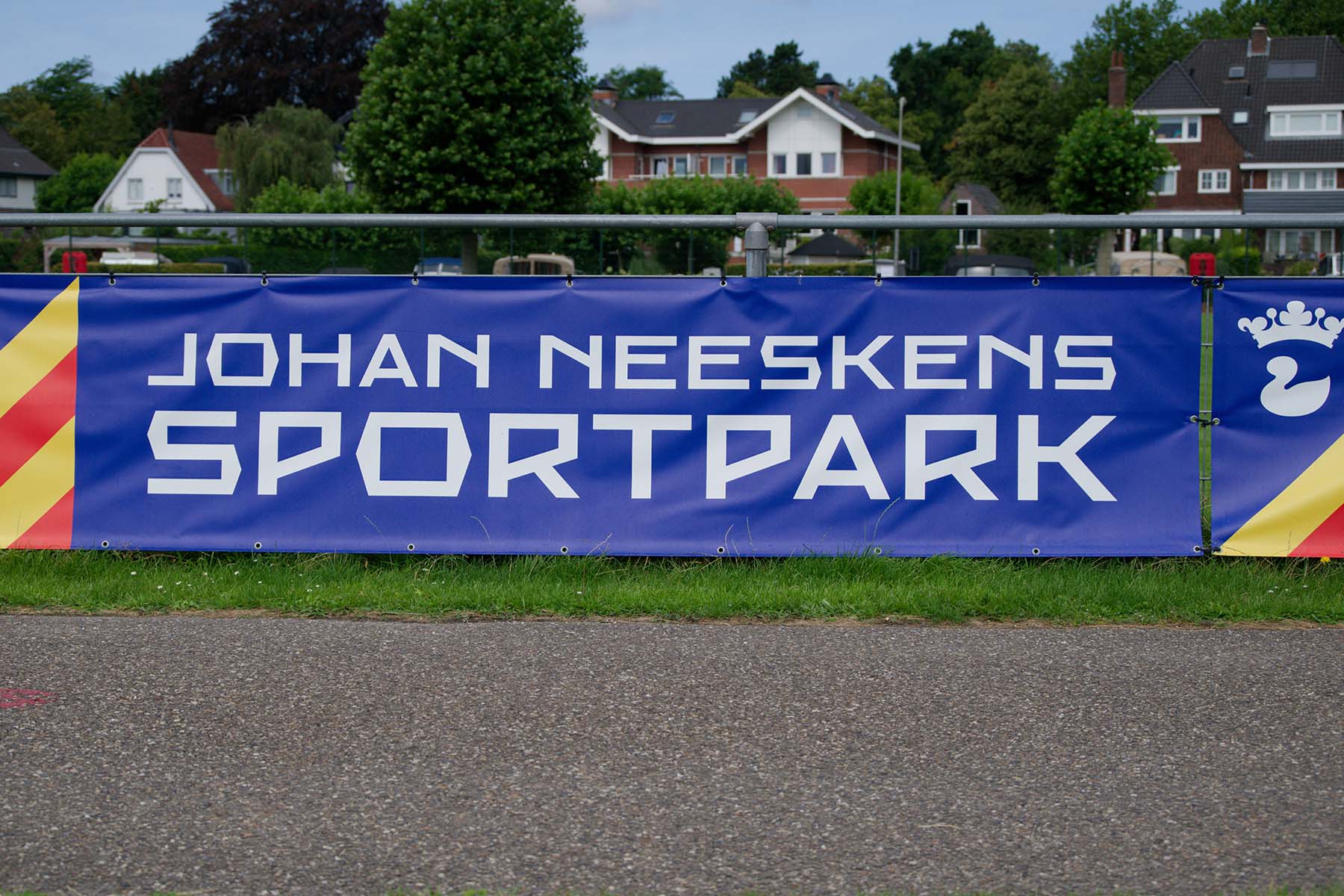
When Studio Wesseling was commissioned to develop the identity for the newly renamed Johan Neeskens Sportpark in Heemstede, they chose Bioskoop, a typeface from the Brutal Types collection, as the project’s primary typographic voice. The result is a striking identity system that feels both contemporary and deeply rooted in Dutch visual culture.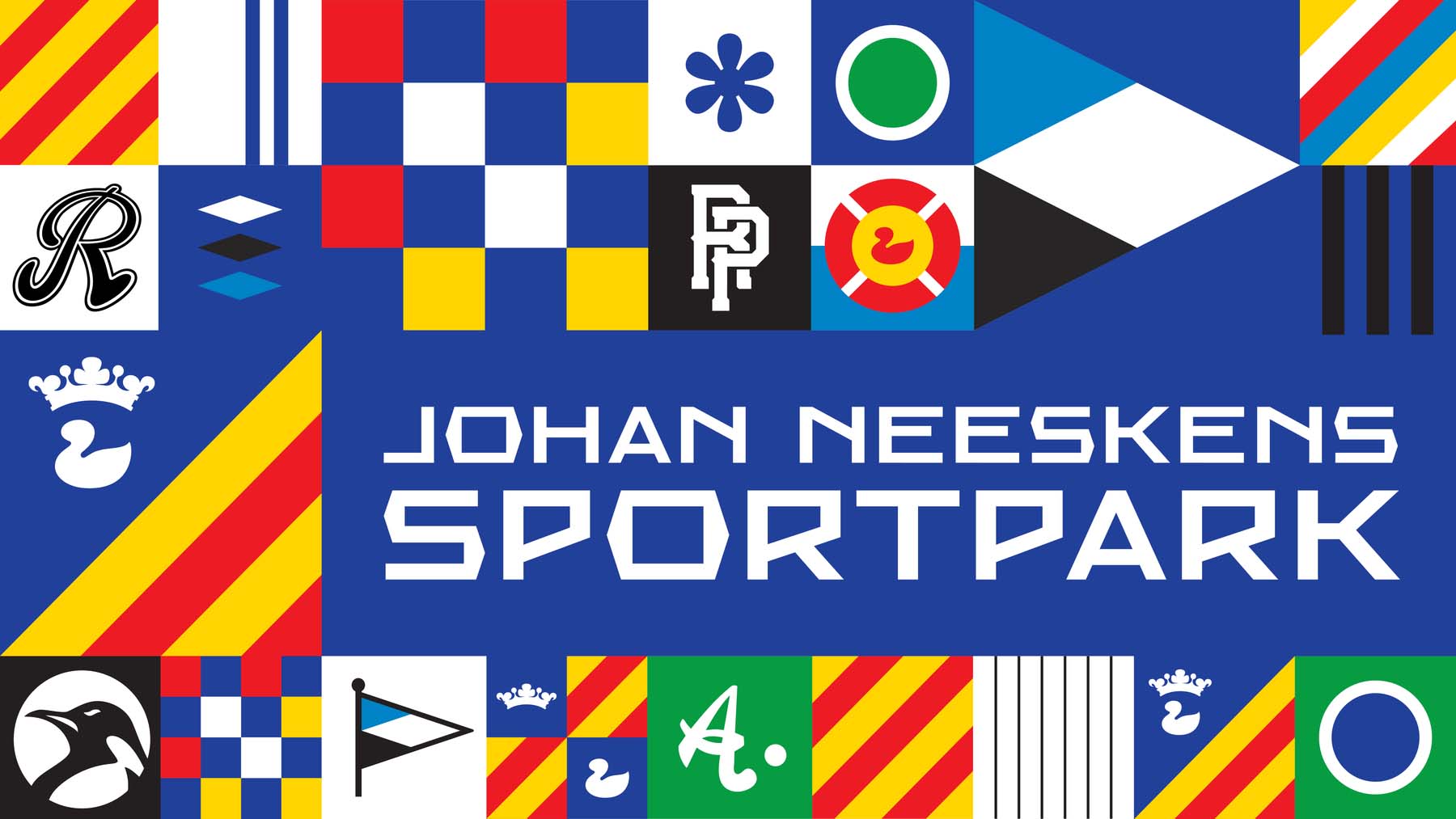
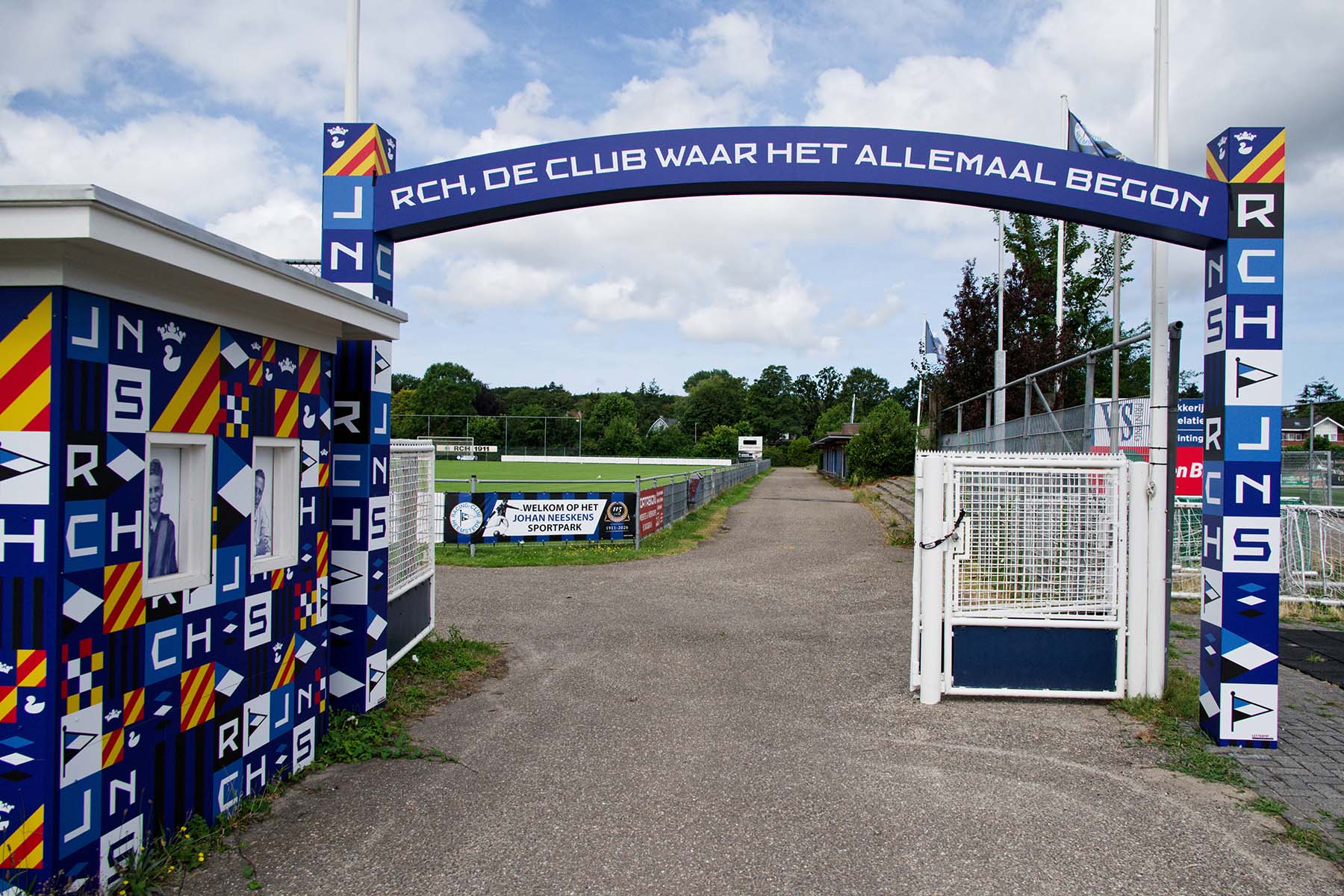
The Bioskoop typeface is inspired by the lettering found on the façade of the abandoned Cinema Palace, located in Maastricht. Like many typefaces in the Brutal Types collection, it revives a forgotten vernacular alphabet that once shaped the streetscape of the Netherlands. Rather than treating historical lettering as a nostalgic curiosity, Studio Wesseling demonstrates how these overlooked typographic traditions can become powerful tools for contemporary branding.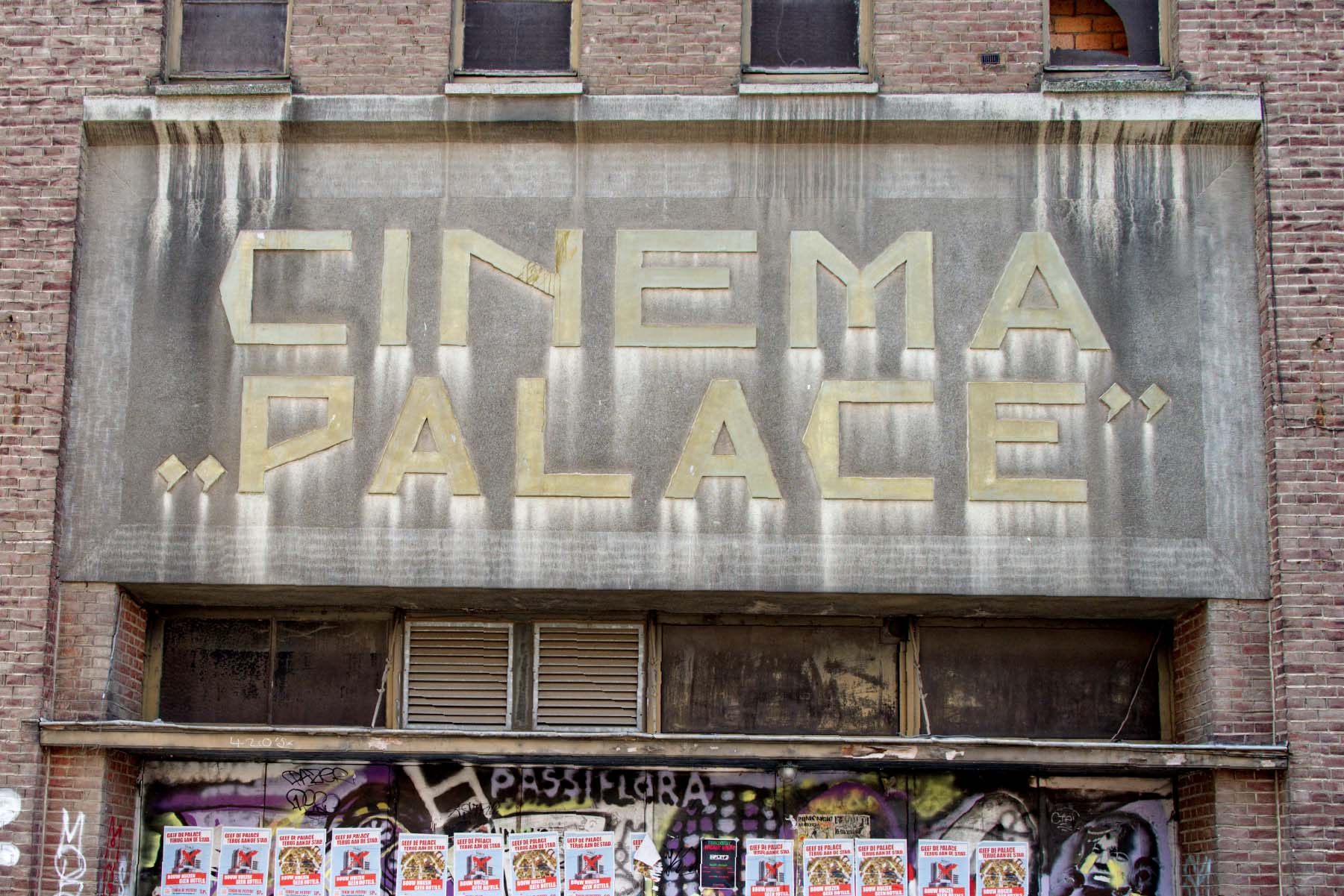
The Johan Neeskens Sportpark identity is an excellent example of why vernacular letterforms deserve a place in today’s design practice. By drawing on a locally rooted typographic language instead of generic display fonts, the project gains a distinctive character that feels authentic to its cultural context. The typography doesn’t simply decorate the identity—it reinforces a sense of place, history, and continuity.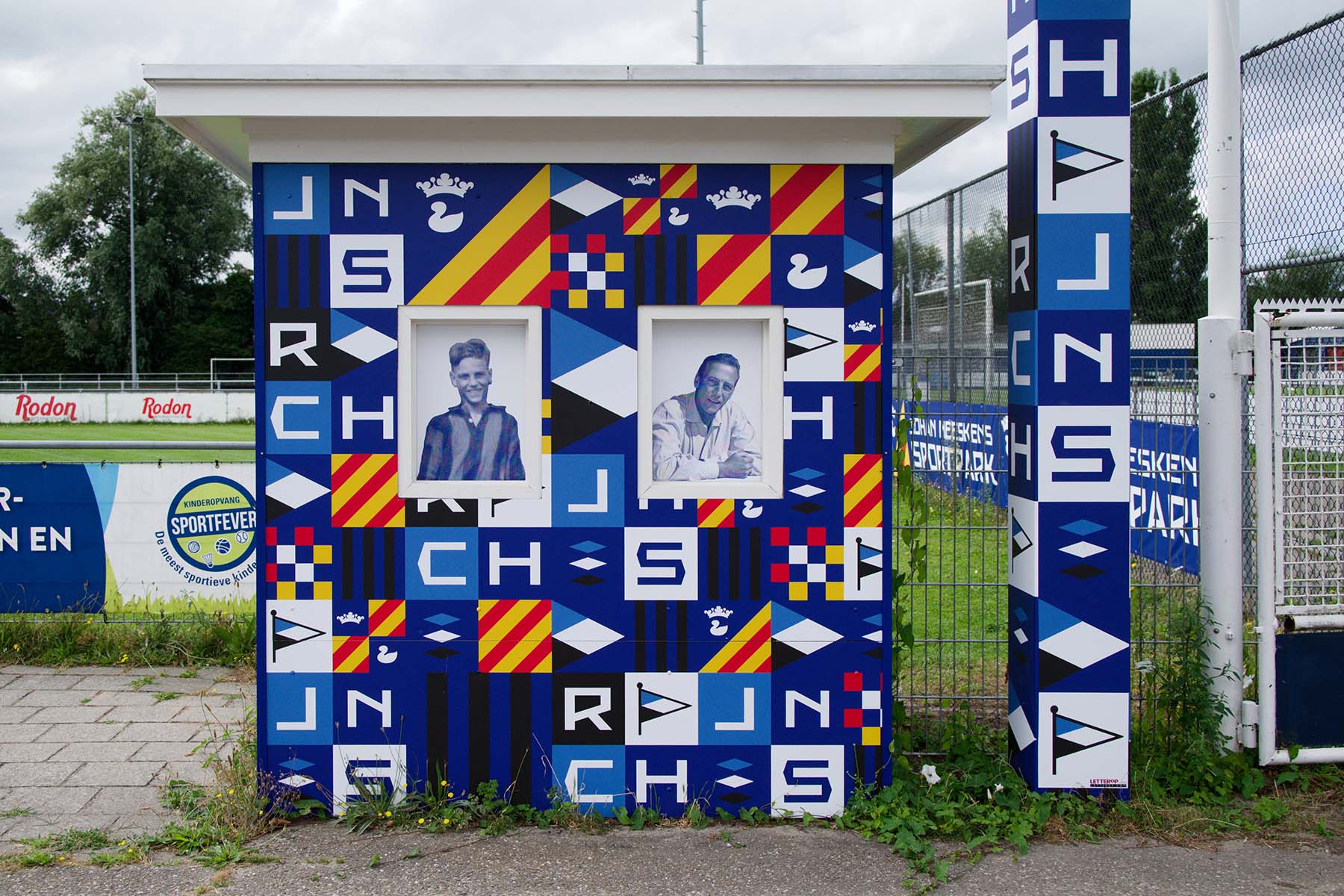
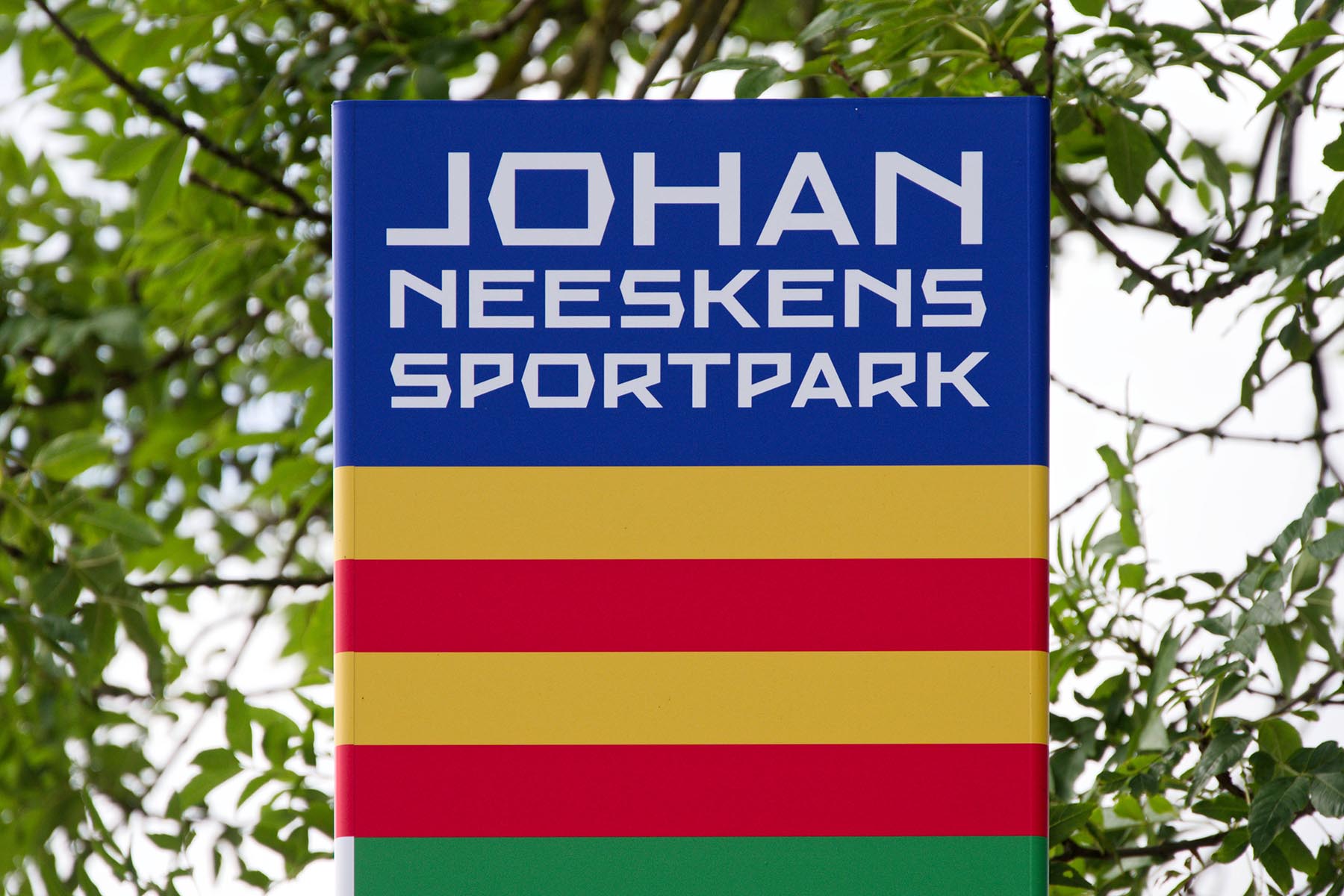
For us, this is one of the most rewarding aspects of reviving historical alphabets. These letterforms were created for real buildings, streets, and communities. Decades later, they can once again contribute to public life, this time as part of contemporary visual identities. Projects such as Johan Neeskens Sportpark prove that font revivals are not about “recreating the past,” but about giving remarkable alphabets a new purpose in the present.